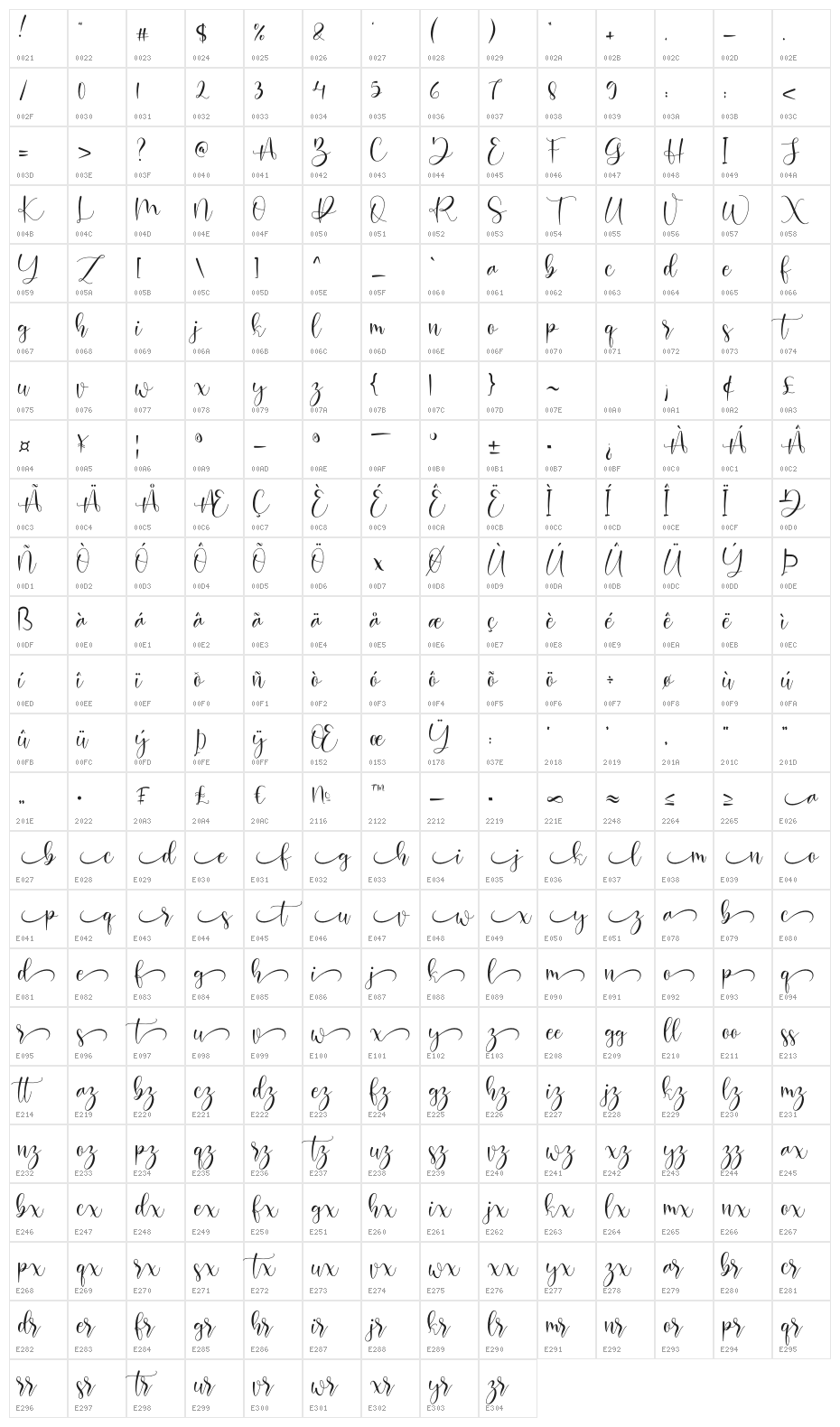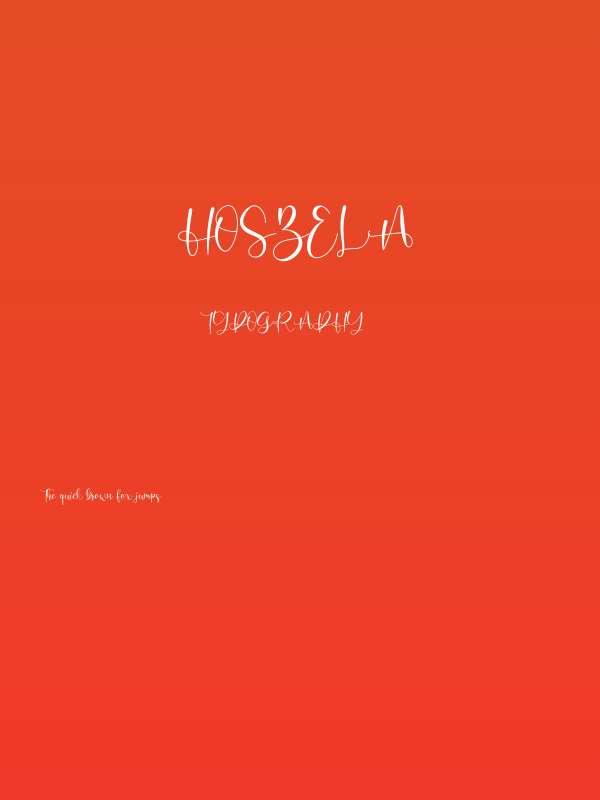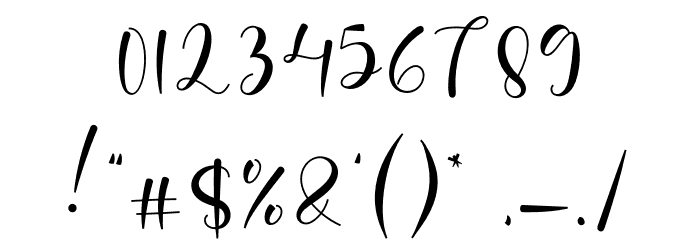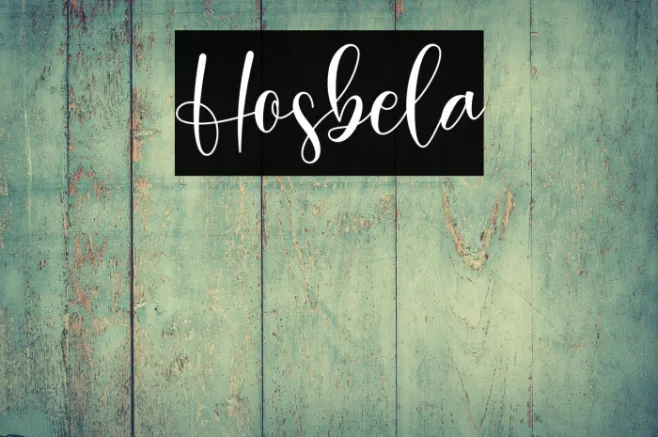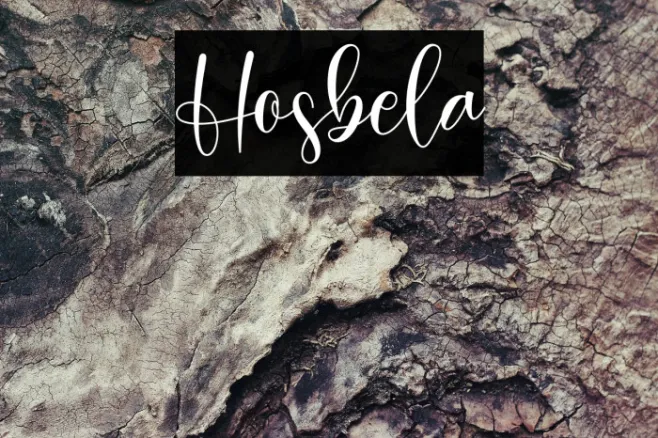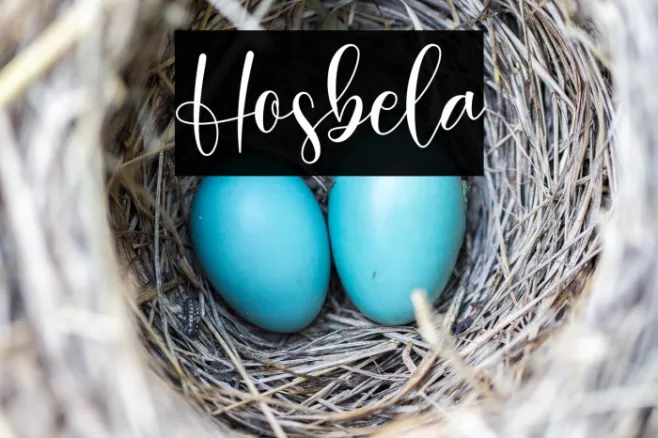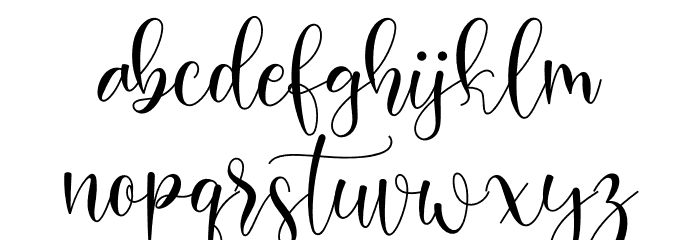
Hosbela Font
Hosbela Description
This font features a flowing, cursive style with elegant loops and swashes, giving it a handwritten appearance. The uppercase letters are tall and graceful, with distinctive flourishes that add a touch of sophistication. The lowercase letters maintain a consistent flow, enhancing readability while retaining an artistic flair. Numbers are bold and clear, complementing the overall aesthetic. Special characters are designed with the same attention to detail, ensuring a cohesive look throughout. This font is perfect for projects that require a personal, artistic touch.